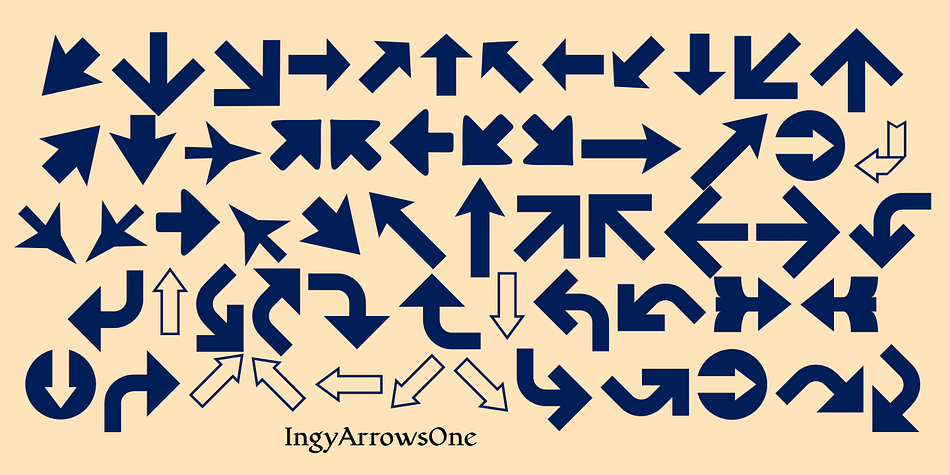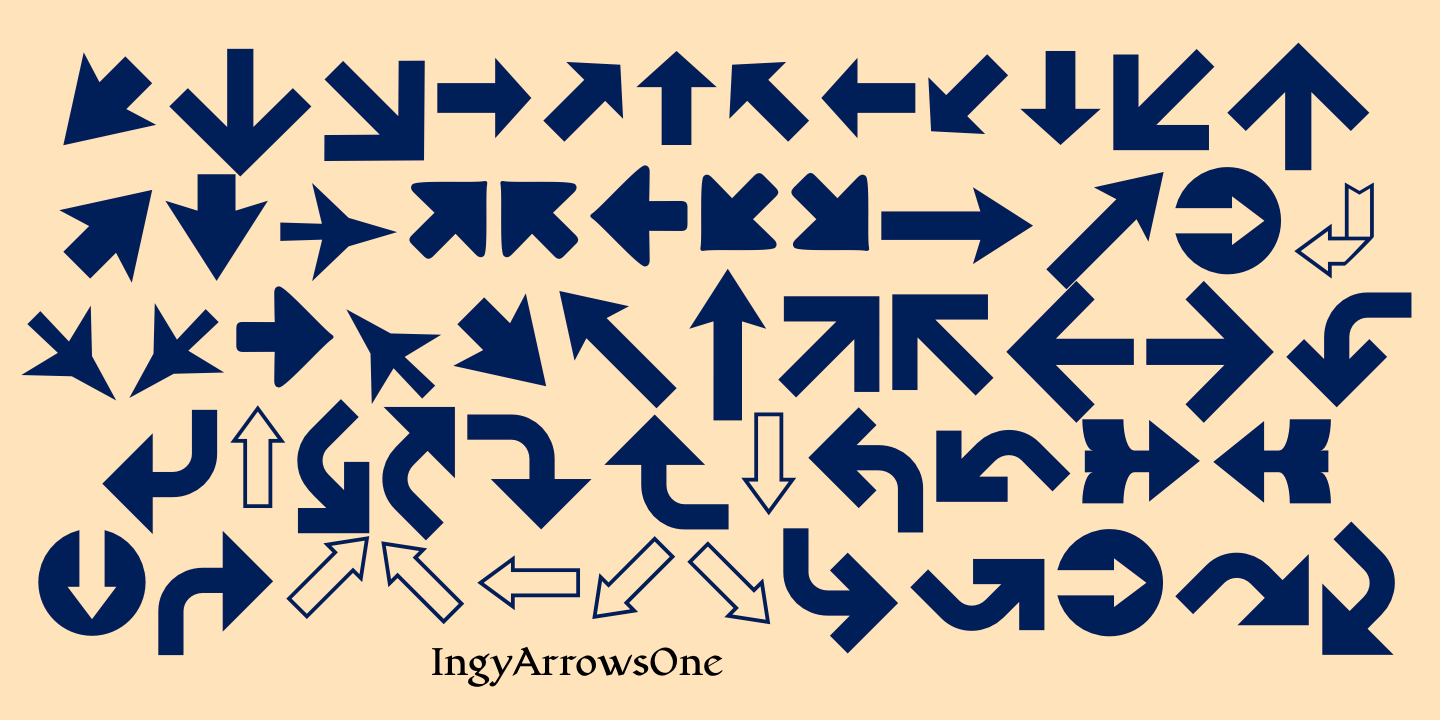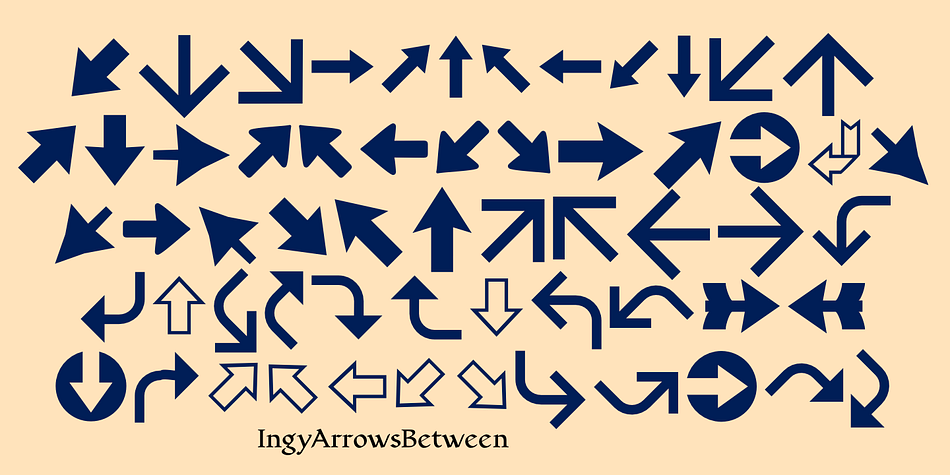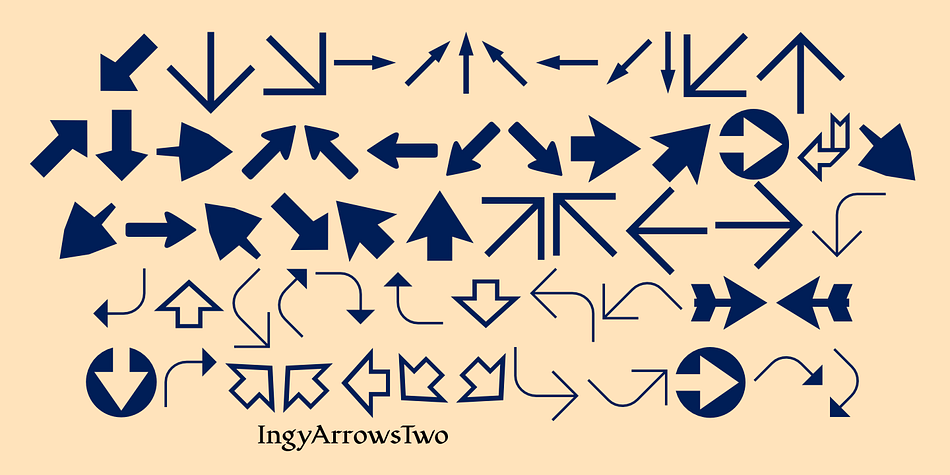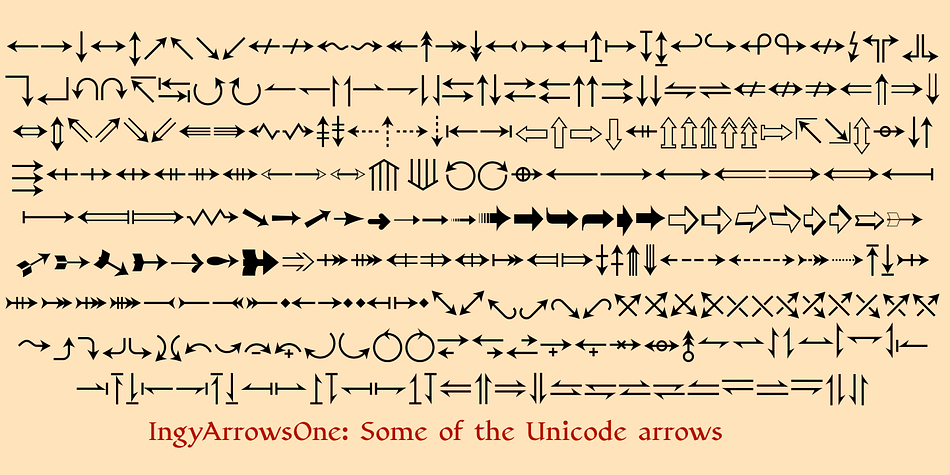
Designed by Robert Schenk, IngyArrows is a dingbat font family. This typeface has three styles and was published by Ingrimayne Type.
IngyArrows is a set of three fonts of arrows, one of them a blend of the other two, where normally there are standard numbers, letters, and punctuation marks.
The revision of 2011 added many of the arrows that exist in several places in the unicode codings and that cannot be accessed by normal keystrokes.